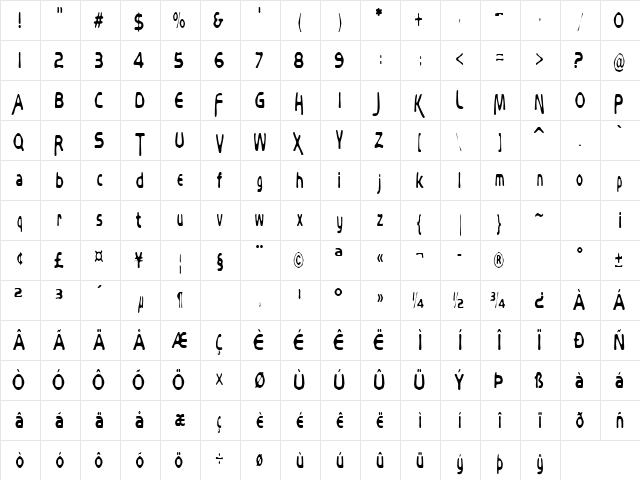
Bubbly Frog Regular Font Preview
Bubbly Frog Regular
Design Context for Bubbly Frog Typeface
Bubbly Frog is a composed and adaptable typeface that performs quietly and consistently across a wide range of design contexts.
Pro Tip: Use Bubbly Frog in both headline and body roles to test its range before committing to a single application.